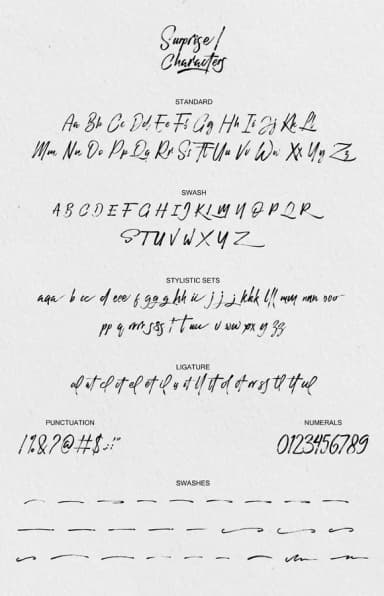
1 / 7About Surprise Font
Surprise Font by Fauzi is a hand-lettered script that brings organic warmth and personality to design work across industries. Built with flowing, natural letterforms that faithfully echo authentic handwriting, this typeface maintains excellent legibility while delivering the tactile charm of pen-on-paper aesthetics that resonate with contemporary audiences seeking genuine, human-touched design.
The design excels in wedding invitation suites and announcement cards where personal touch directly influences reader response and emotional engagement, Etsy product labels and boutique packaging where hand-crafted visual appeal drives brand perception and purchase intent, and greeting card collections where authenticity makes all the difference. Whether you're designing custom vinyl decals for artisan craft signage, creating social media graphics with personality, or developing cohesive packaging identities for small lifestyle brands, Surprise Font adapts gracefully to your vision without veering into overly decorative territory.
Surprise Font is a script font that shines as a display or heading face. Pair it with a clean sans-serif or serif font for body text — the contrast creates a clear hierarchy while the two styles stay balanced and easy to read.
Surprise Font
by Fauzi